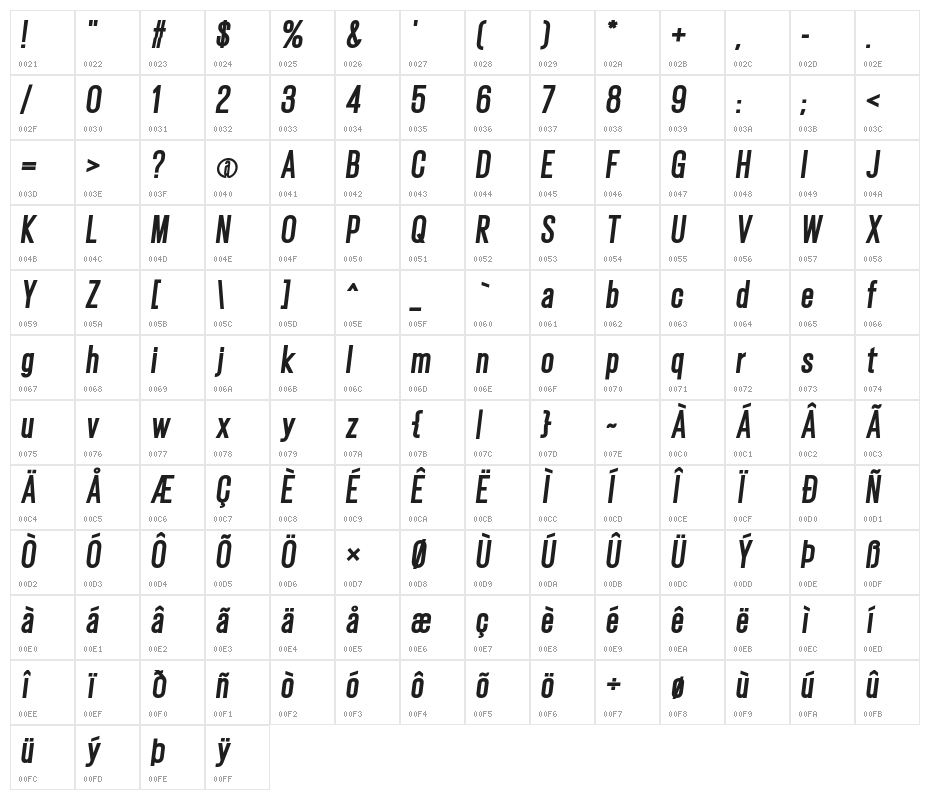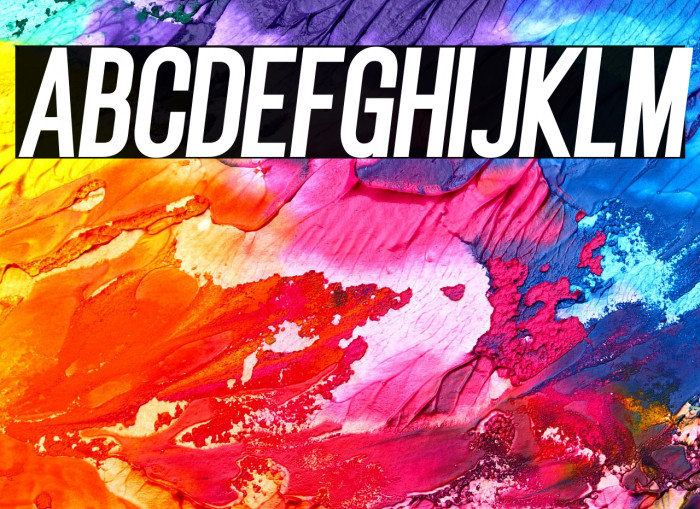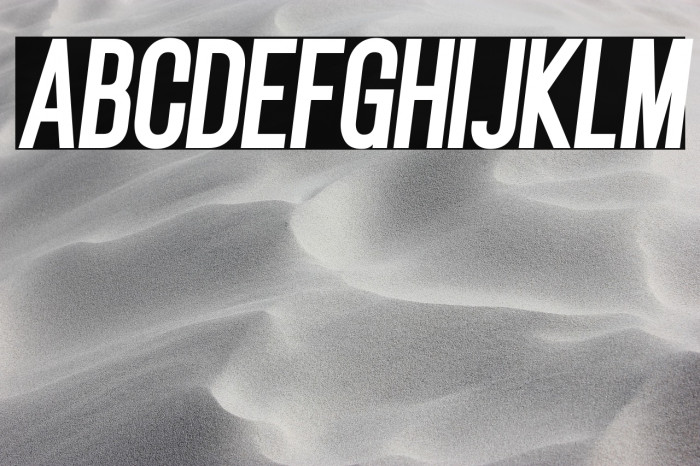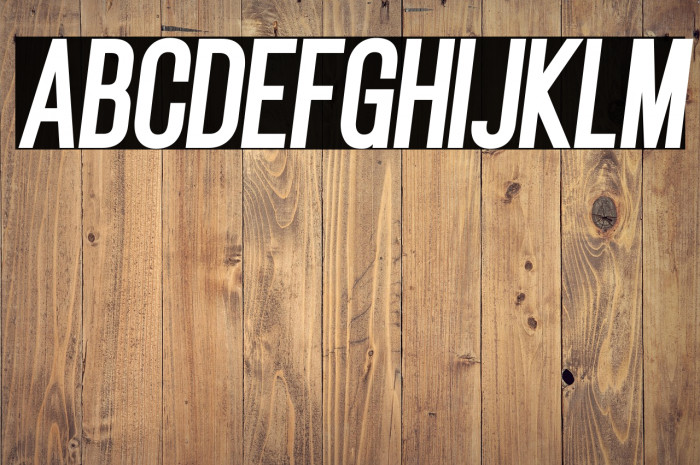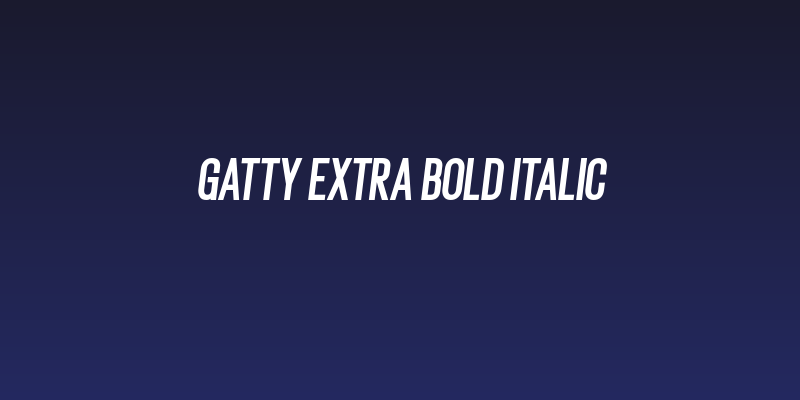
Gatty Extra Bold Italic Font
Gatty Extra Bold Italic Description
This typeface exhibits a bold and dynamic presence with its extra-bold weight and italicized style. The characters are sharply defined, featuring a modern sans-serif design that emphasizes clarity and impact. The slanted orientation adds a sense of movement and urgency, making it suitable for attention-grabbing headlines. The uppercase and lowercase letters maintain a consistent height, contributing to a cohesive appearance. Numbers and special characters are equally bold, ensuring uniformity across all text elements. The overall design is sleek and contemporary, ideal for projects that require a strong visual statement.
| Proposed Projects | Ideal for advertising, branding, headlines, and editorial design where a strong and modern look is desired. |